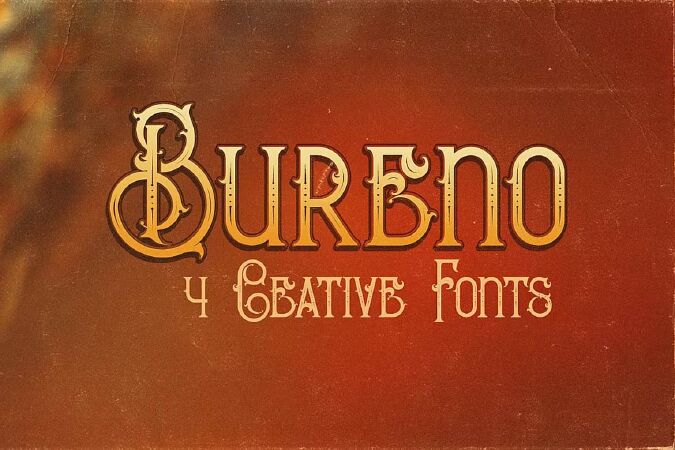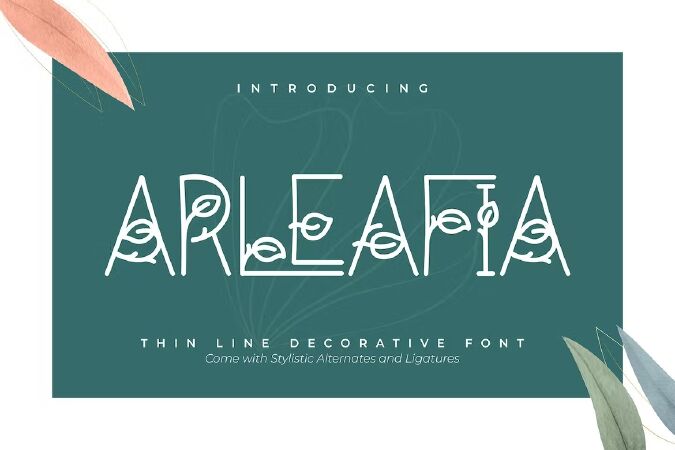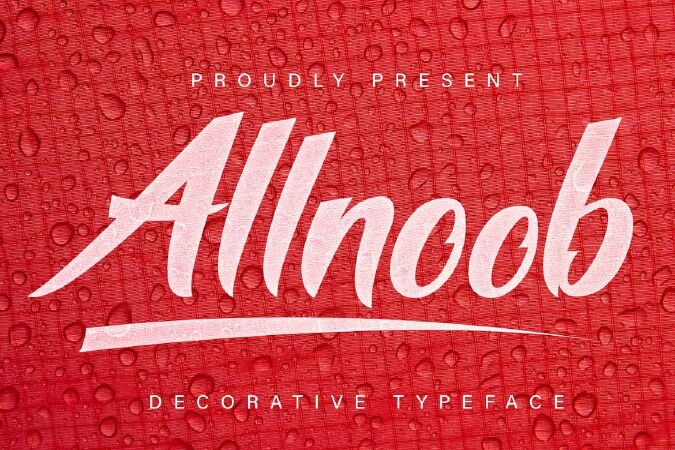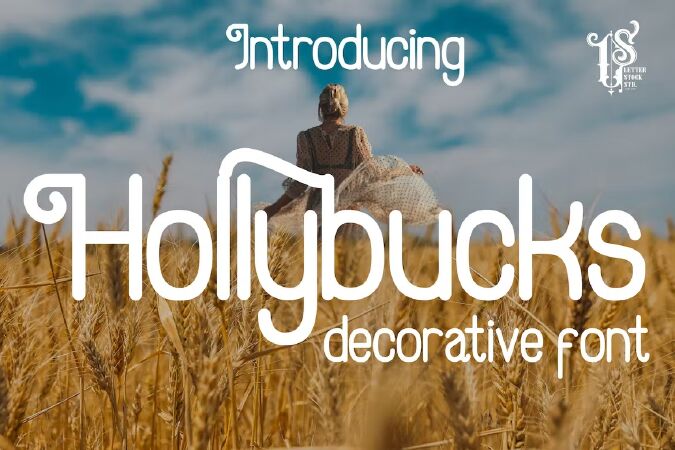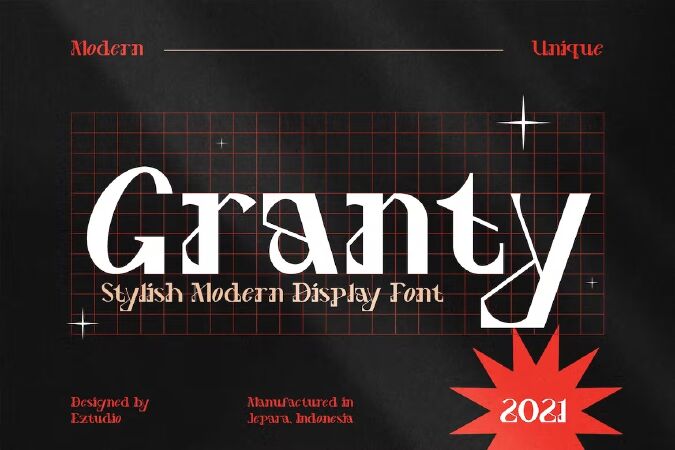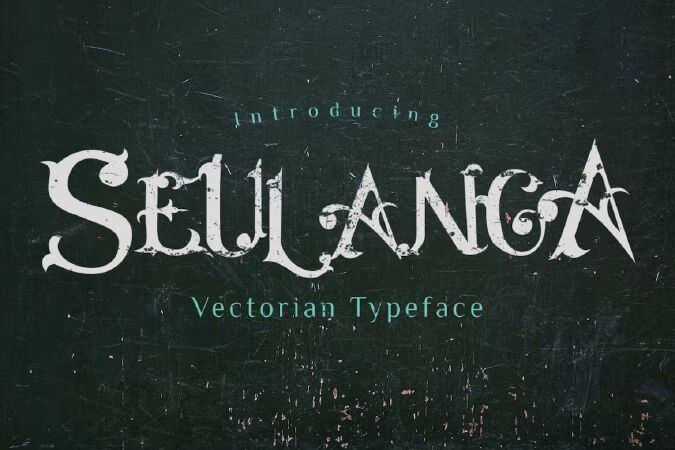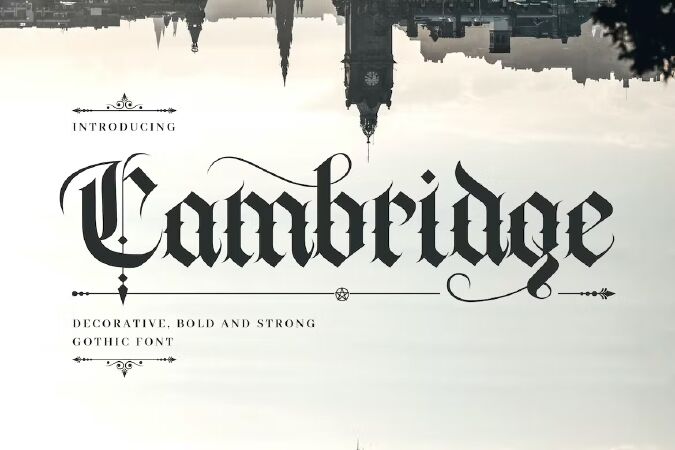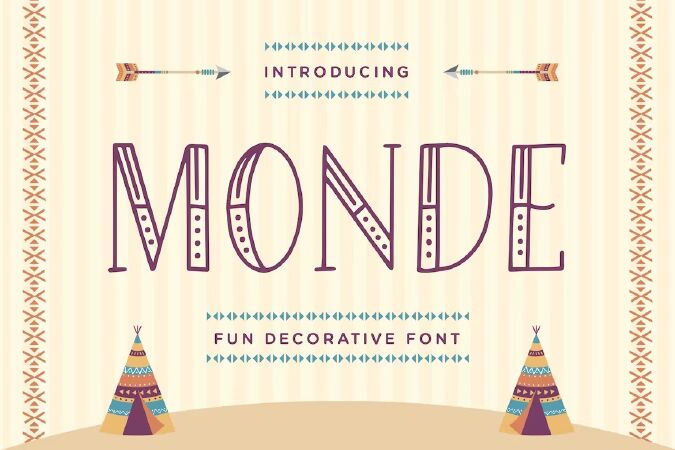
Top 12+ Best Decorative Fonts For Designers in 2023
12+ Best Decorative Fonts For Designers in 2023. The right font combination can make your site stand out from the crowd. Whether you want to design a trendy logo, creative poster title, header for a website, or even a stylish T-shirt design, choosing an attractive and impressive decorative font to attract customers is an extremely necessary thing. We handpicked a collection of the best decorative fonts to show you how useful and creative decorative fonts can really be. You can download any of these premium fonts for a single price, and there are plenty of free fonts in there as well!
1 Bureno - Decorative Font
Vintage & ornamental style display font for your new projects.
Great for your retro/vintage headers or identity!
2 Arleafia | Decorative Font
Arleafia | Decorative Font with a calligraphy style, So beautiful on invitation like greeting cards, branding materials, business cards, quotes, posters, and more!
3 Basaro - Decorative Font
Basaro Typeface is all caps display sans serif with many letter combinations according to creation. This font is inspired by an elegant & classic style with various swash. Equipped with Stylistic Set: ss01 – ss12, 12 alternatives per letter. Very easy to use and perfect for headlines, logos, posters, packaging, T-shirts, postcards and much more.
4 Allnoob Decorative Font
Allnoob Typeface is one of the elegant decorative fonts neatly arranged and cool, you can also use it for business, clothing, movie titles, and more
5 Hollybucks - decorative font
Hollybucks
Introducing Obidel font, that was inspired from a lettering design that i saw on pinterest. It was originally crafted by hand to add natural handmade feeling than i make it clean with pentool.
We improvise it a little bit to make a playful feel, this font is bold so and it can look strong if you use it for branding or even title for your poster design with playful decorative style.
Opentype features Hollybucks Font is very good looking playful decorative font for logotype, labels, t-shirt prints, product packaging, invitations, advertising and others.
If you looking for a playful decorative font, than this item is a good choice for you because this font have a strong playful feel.
12 Veopars - Decorative Font
Introducing Veopras, an elegant, luxury, and beauty serif font. Its unique and lovely feel. So perfect for you who needs a typeface for logo designs, magazine, social media, brochure, and many more.
• Beauty alternate of P, N, Q, S,W, J